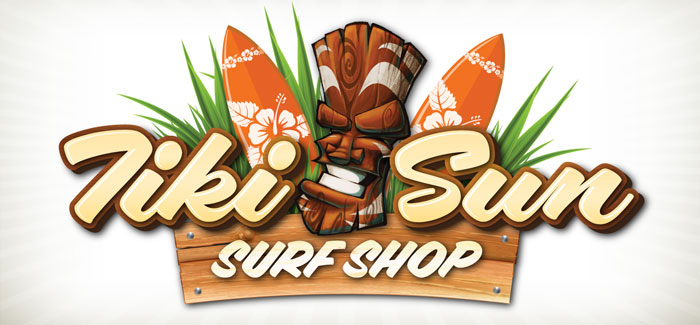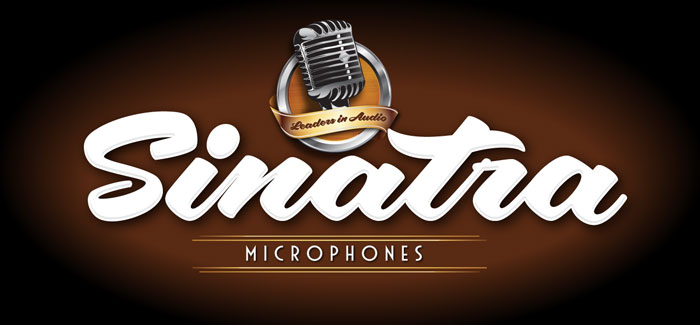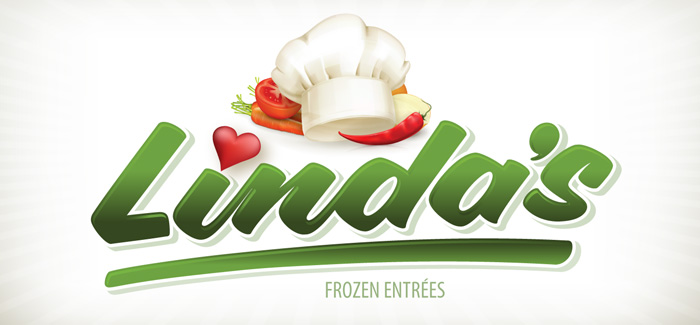
Aloha Script font
Aloha Script font comes in two flavors: Aloha Script and Aloha Script Casual. Both fonts contain the same lowercase, alternates, and ligatures – the difference is in the capitals.
By mixing both fonts you can create a variety of unique logos. Aloha Scripts Casual can be set in all caps for greater emphasis on captions. Both fonts contains over 100 alternate characters, as well as an assortment of ligatures, swashes and underlines. With over a year and a half in development, Aloha Script font is bound to please. Great for logo design, signs, posters, culinary food packaging and so much more. Aloha!